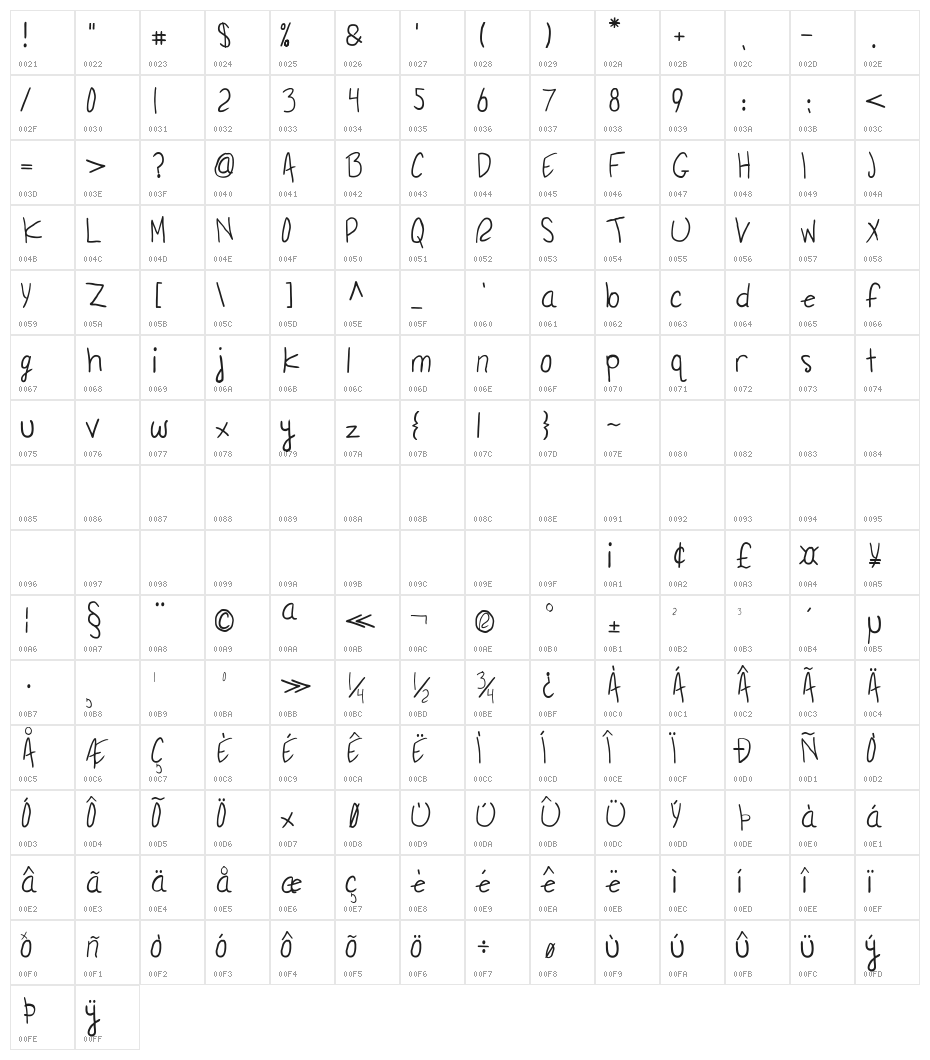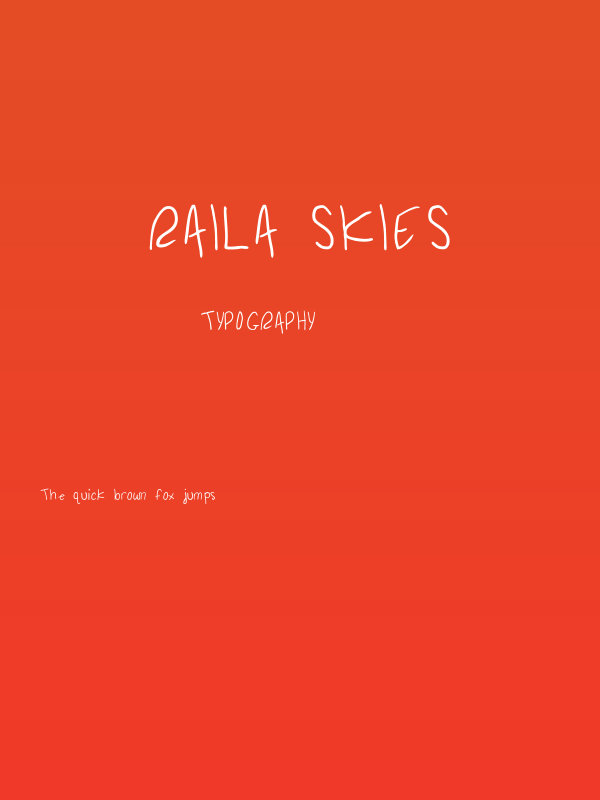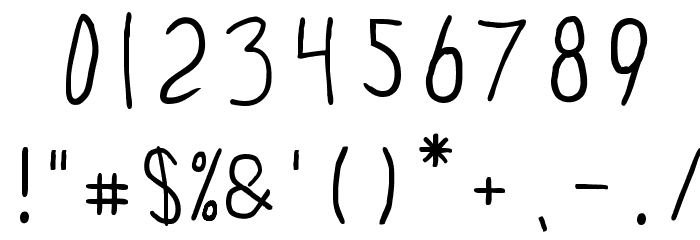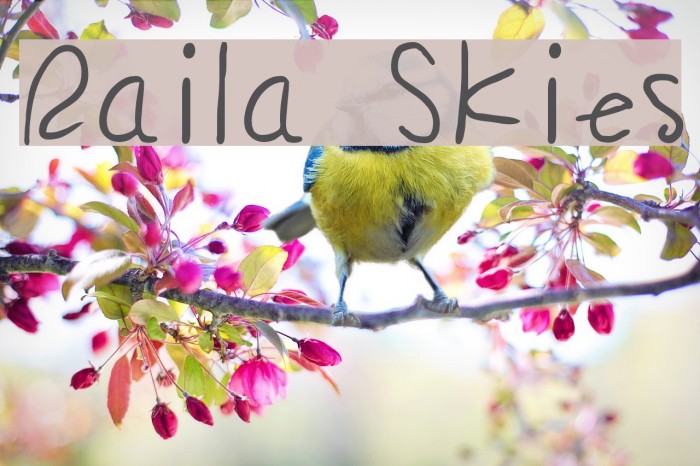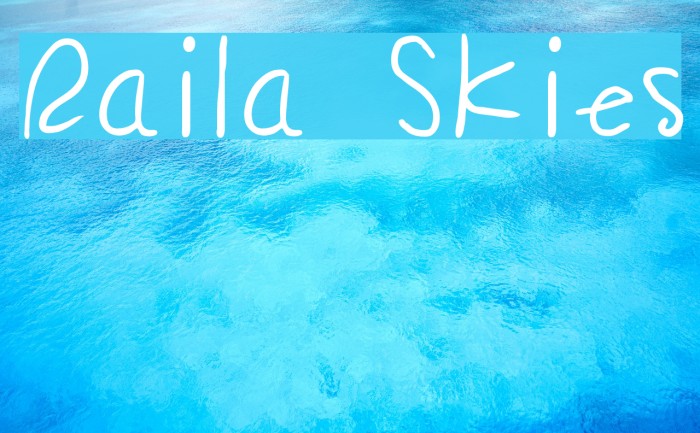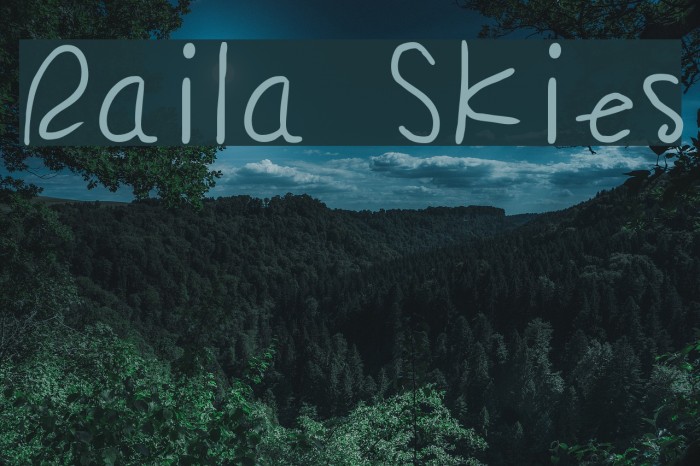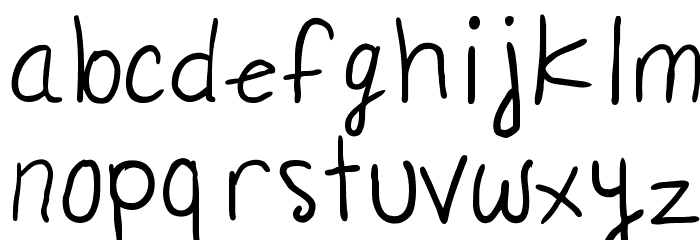
Raila Skies Font
Raila Skies Description
This font features a playful and casual handwritten style, characterized by its irregular and slightly uneven strokes. The letters are freeform and organic, giving a sense of spontaneity and creativity. The uppercase and lowercase letters maintain a consistent flow, while the numbers and special characters complement the overall aesthetic. The font's informal nature makes it ideal for projects that require a personal touch or a relaxed vibe.
| Overall Style | Casual |
| Use Case | Headlines, Informal text, Creative projects |
| Proposed Projects | Ideal for greeting cards, children's books, casual branding, and social media graphics. |